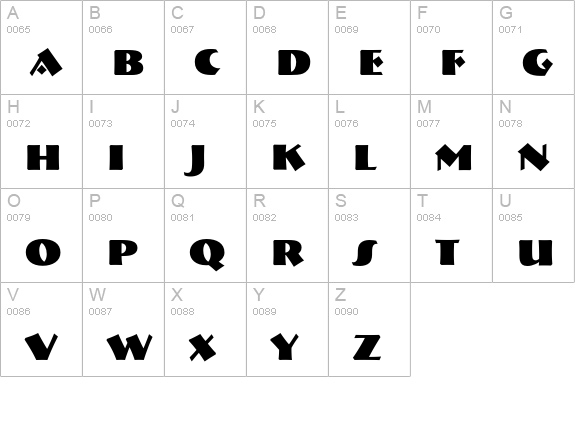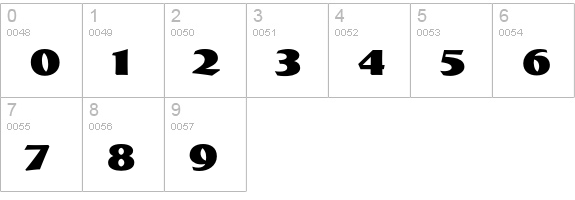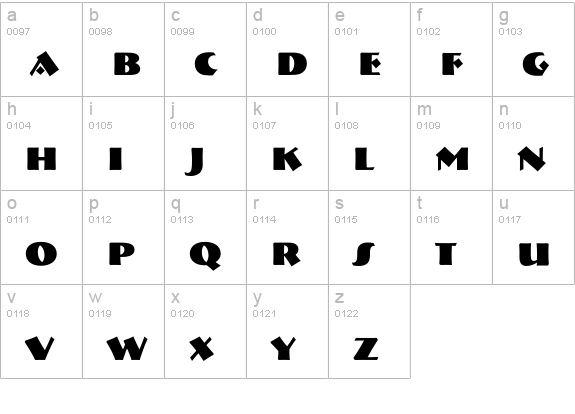
Bremen-Black is a maximum-weight, dramatic variant in the Bremen typeface family \xE2\x80\x94 well suited to maximum-impact headlines, posters, and packaging.
Bremen-Black font is a bold and modern typeface that exudes confidence and sophistication. With its sleek lines and strong presence, this font is perfect for making a statement in any design project. Whether you're creating a logo, branding materials, or signage, Bremen-Black will surely stand out and leave a lasting impression. The best part? Bremen-Black font is completely free to download at FontsMarket.com. That's right, you can enhance your designs with this stunning font without spending a dime. Don't miss out on this amazing opportunity to elevate your work with Bremen-Black font - download it today and let your creativity shine!